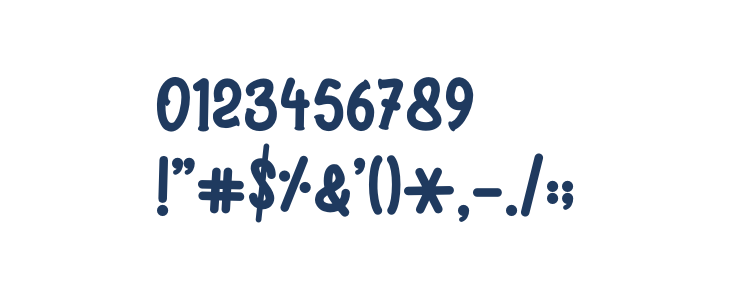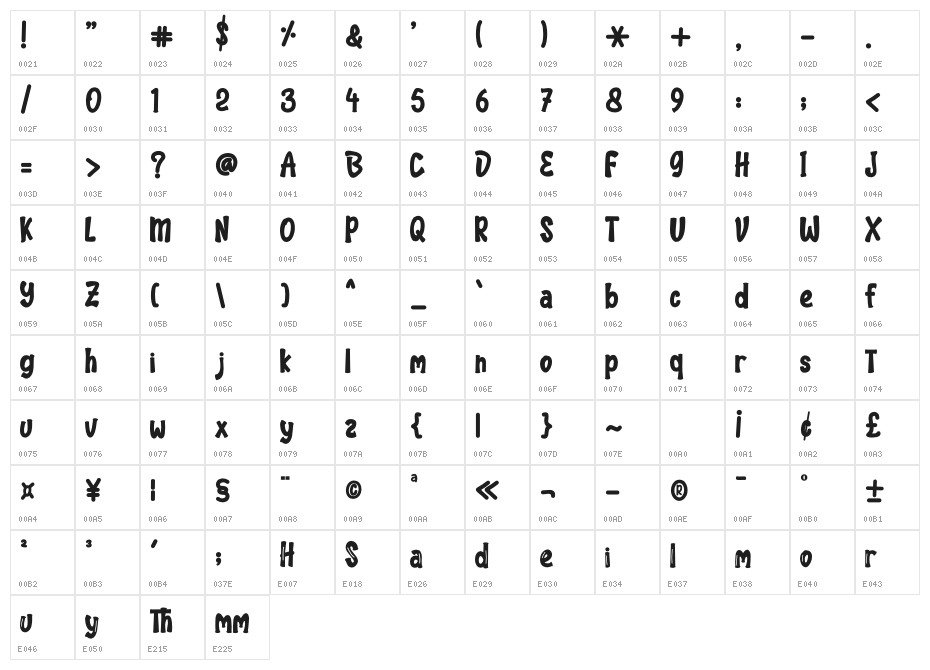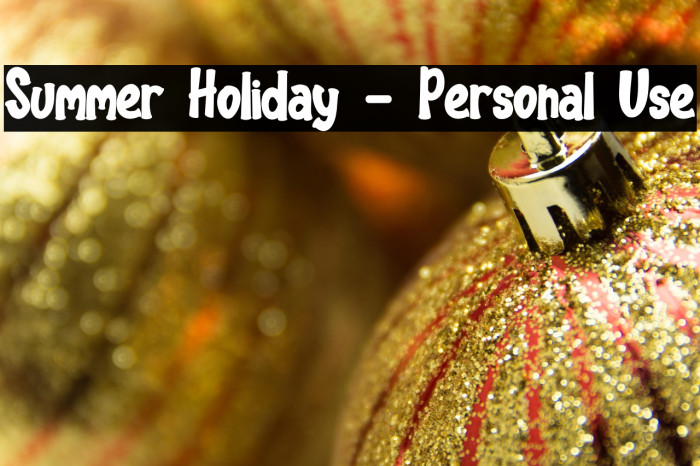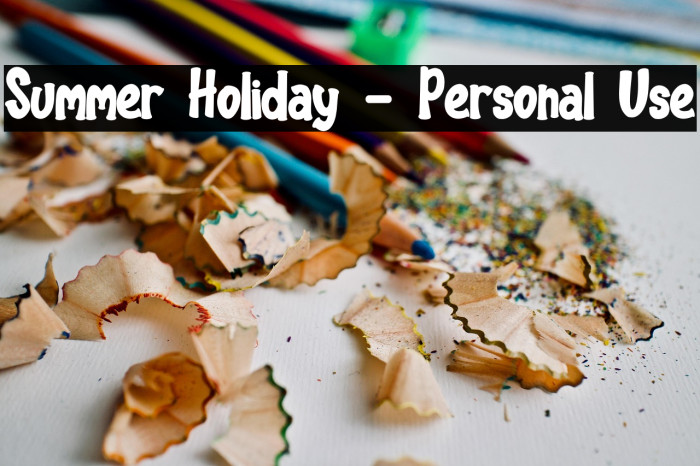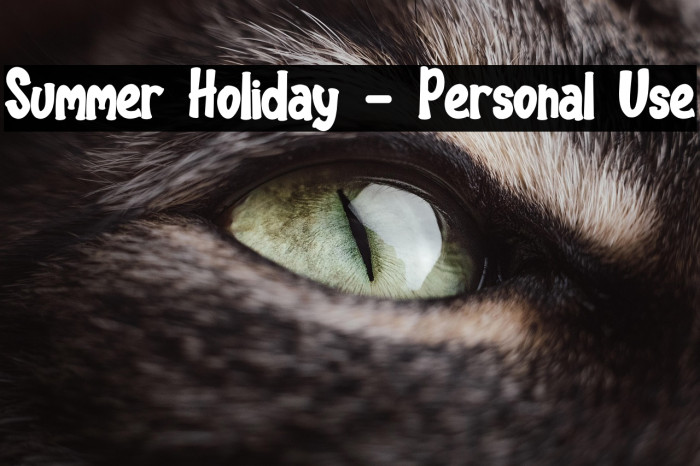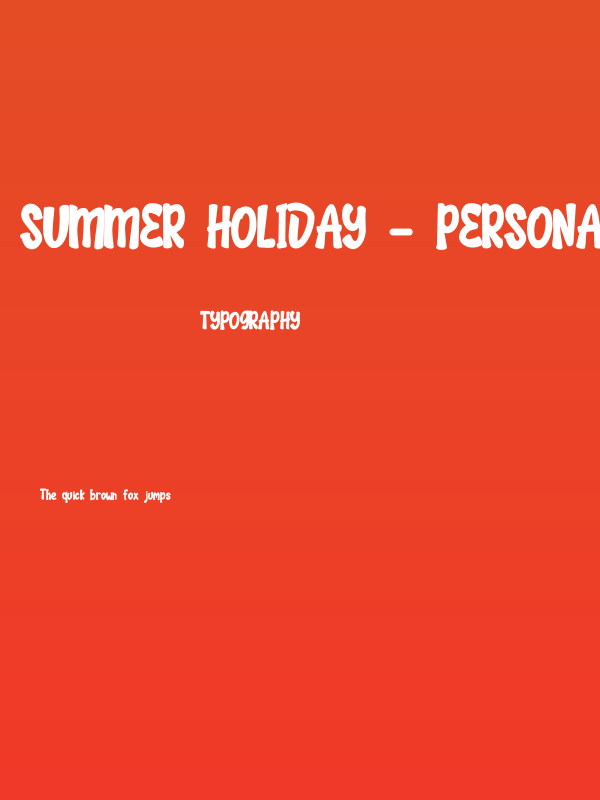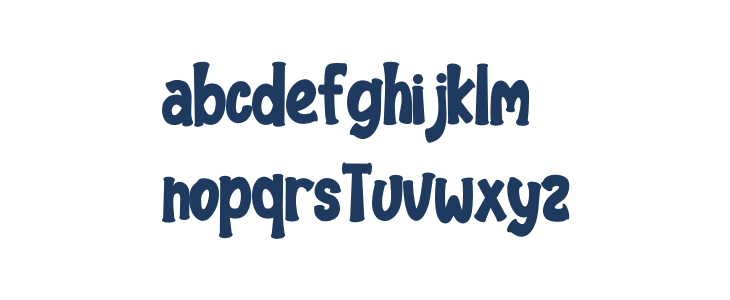
Summer Holiday - Personal Use Font
Summer Holiday - Personal Use Description
This playful and bold font features a handwritten style with a lively and energetic appearance. The characters are rounded and slightly irregular, giving them a casual and friendly feel. The uppercase and lowercase letters maintain a consistent style, with the uppercase being slightly larger and more pronounced. Numbers and special characters are designed to match the playful aesthetic, making them suitable for creative and informal projects. The font's thick strokes and rounded edges contribute to its approachable and fun personality, making it ideal for designs that aim to convey warmth and friendliness.
| Proposed Projects | Ideal for greeting cards, children's books, playful branding, and social media graphics. |